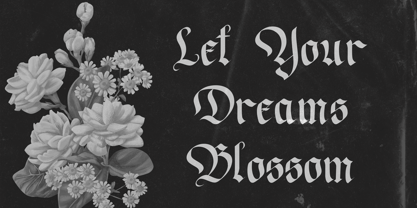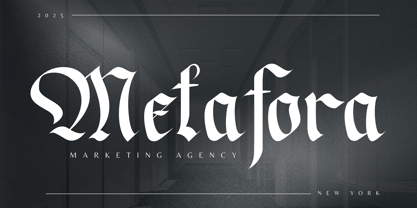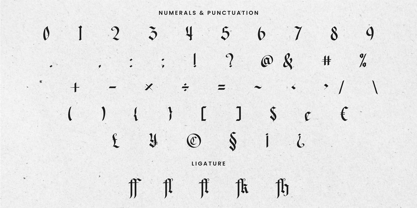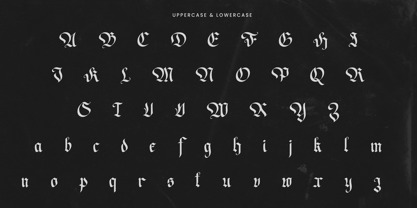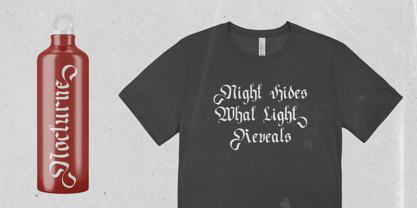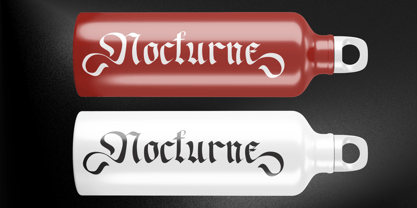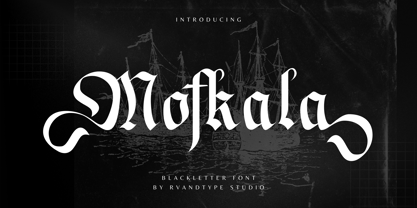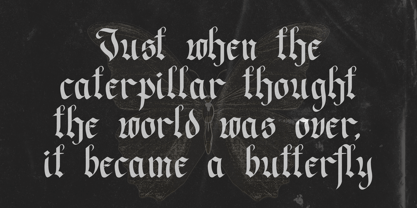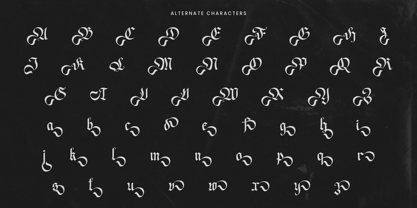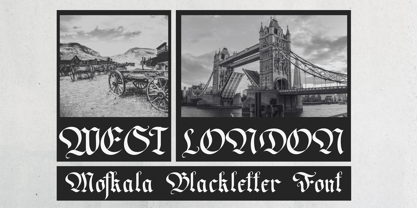
Mofkala
Mofkala is a modern blackletter display font that blends traditional gothic aesthetics with a bold, contemporary edge. Designed for impact, this typeface brings a strong character and unique presence to any visual project.
Perfect for:
• Music posters (metal, punk, rock, indie)
• Edgy branding
• Book or magazine covers
• Packaging with personality
• Statement-making social media graphics
Features:
• Classic blackletter forms with modern twist
• Sharp angles and bold strokes for a striking look
• Decorative ligatures and alternate characters for creative freedom
Whether you’re aiming for a rebellious vibe or a dramatic visual, Mofkala is built to make your designs stand out with confidence.